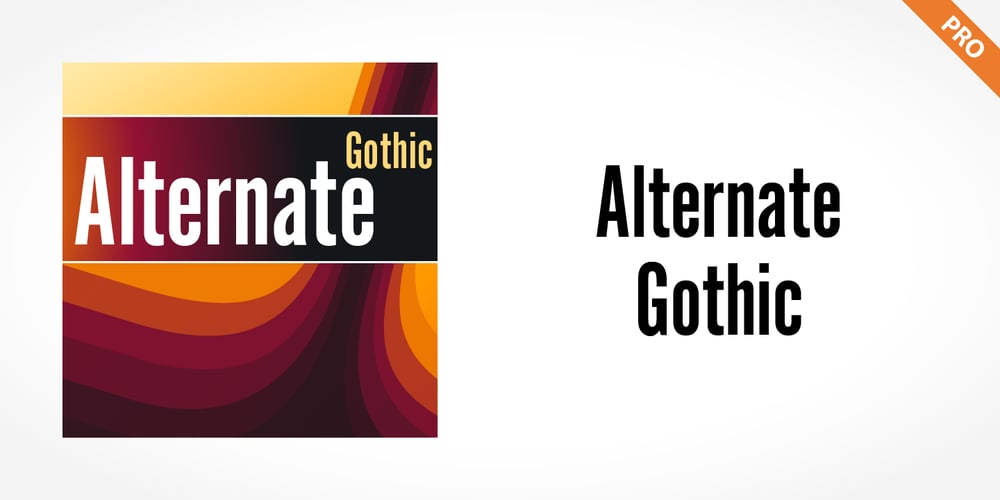
Alternate Gothic Pro Font Family was designed by published by SoftMaker. Alternate Gothic Pro contains 3 styles and family package options. Alternate Gothic Pro is one of the fonts of the SoftMaker font library. Designed by Morris Fuller Benton in 1903 as a complement to his Franklin Gothic type, Alternate Gothic was created to solve a common problem: fitting headlines in narrow columns. For that purpose, it comes with three similar styles of varying widths. SoftMaker’s Alternate Gothic Pro typeface family contains OpenType layout tables for sophisticated typography. It also comes with a huge character set that covers not only Western European languages, but also includes Central European, Baltic, Croatian, Slovene, Romanian, and Turkish characters. Case-sensitive punctuation signs for all-caps titles are included as well as many fractions, an extensive set of ligatures, and separate sets of tabular and proportional digits.